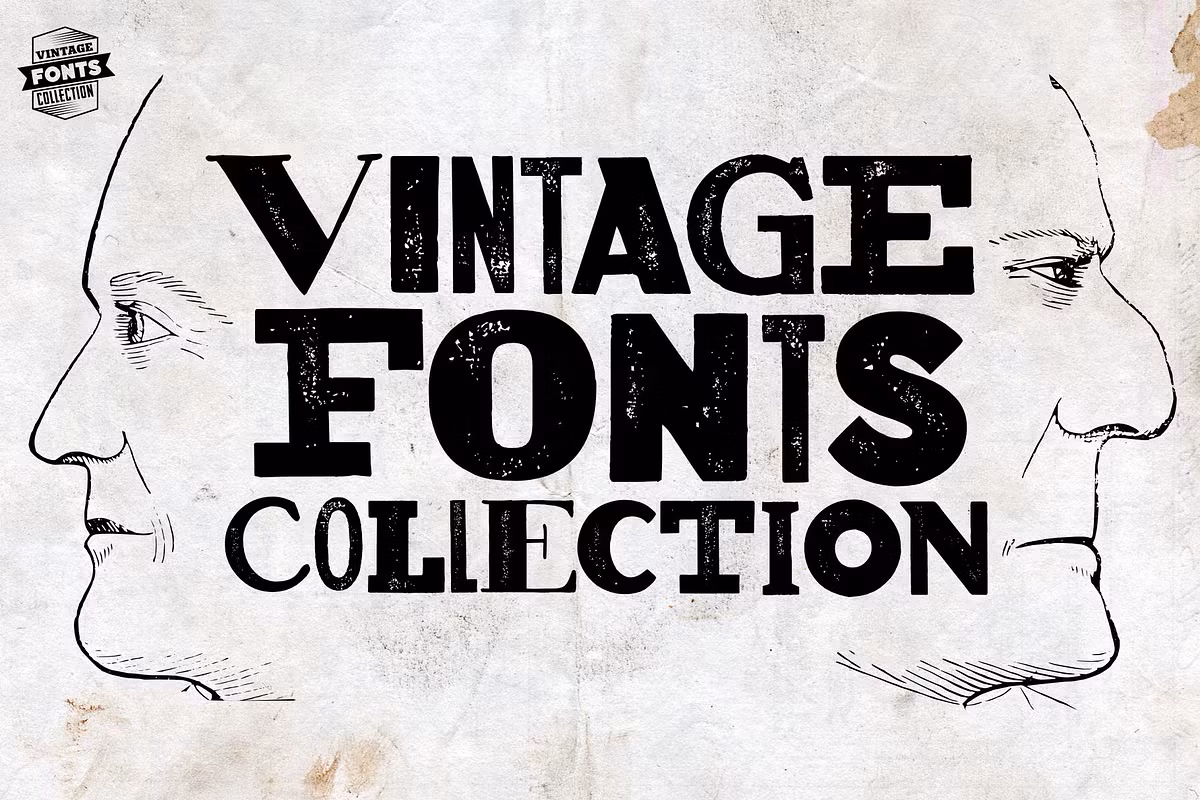
Vintage Fonts Collection - 18 Fonts Free Download is a comprehensive bundle of retro-inspired typefaces designed to bring nostalgic charm and timeless character to your creative projects. Please note: you must purchase this font for commercial use, but you can test it through a free download. This versatile collection includes 18 unique fonts, each with its own vintage flair—perfect for logos, packaging, posters, apparel, signage, and branding with an old-school touch.
From bold slab serifs to script styles and decorative display fonts, this bundle gives you endless creative possibilities. Whether you're designing a craft beer label or a retro-themed flyer, Vintage Fonts Collection - 18 Fonts Free Download equips you with the perfect typeface for any occasion. Fully compatible with Adobe Illustrator, Photoshop, and Canva, these fonts are easy to use and ready to enhance your work. Download now for personal use and explore the charm of vintage typography at its finest.